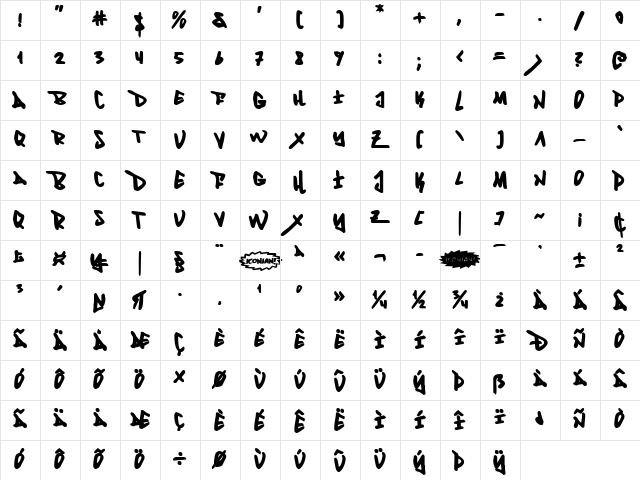
Fantom Bold Bold
Design Context for Fantom Bold Typeface
Fantom Bold is a composed and adaptable typeface that performs quietly and consistently across a wide range of design contexts. The heavy weight commands attention and anchors typographic hierarchies.